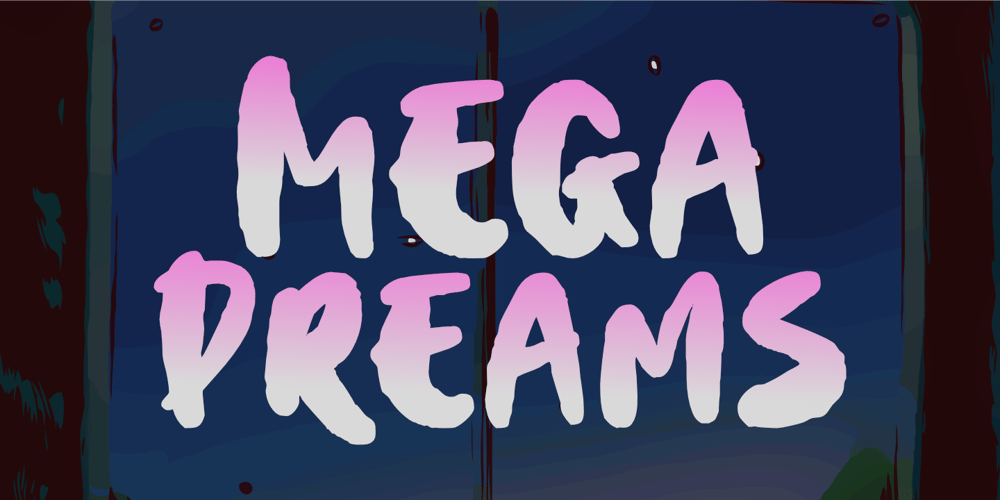
Mega Dreams
Mega Dreams font
Mega Dreams Font Family was designed by Nurul Hidayani and published by Olivetype. Mega Dreams contains 1 styles and family package options. Rugged and masculine, Mega Dreams is a cool brush font for any project that needs a manly touch. Whether it’s a poster headline or website title, this font will add an extra bit of oomph.Mega Dreams font includes : Standard Latin Uppercase and Lowercase Numbers, symbols, and punctuations Multilingual Support. PUA Encoded and fully accessible without additional design software Simple Installations Works on PC & Mac Thank You.